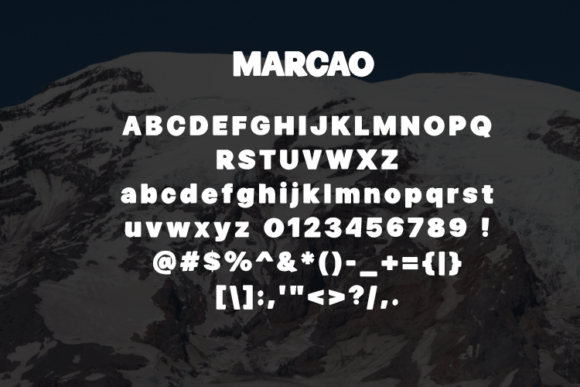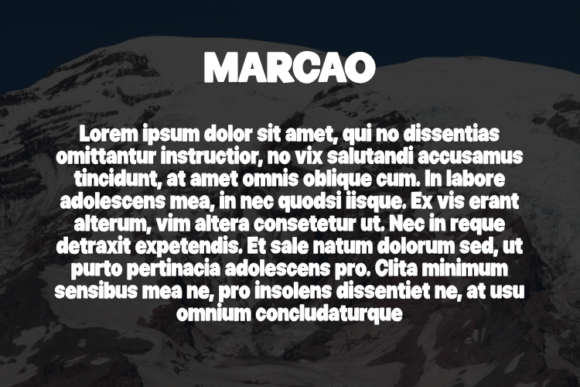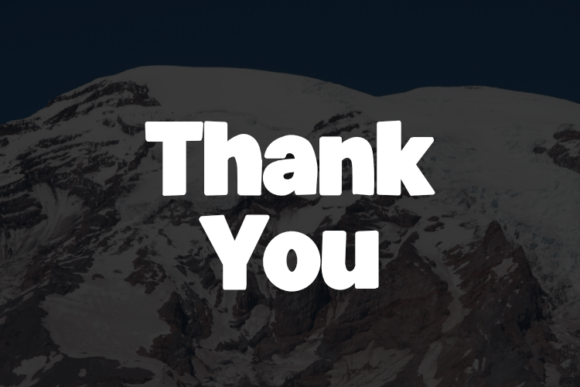
Introduction to Marcao Font
Immerse yourself in the world of creativity with β€œMARCAO” – a versatile font carefully curated to breathe life into your designs.
Ideal for creating standout apparels, eye-catching t-shirts, and a vast array of other products, MARCAO adapts flawlessly across all your design requirements It’s universally compatible with all software and comes in an easy-to-use otf file.
Key Features of Marcao Font
Why Choose Marcao Font?
Marcao Font offers exceptional quality and versatility, making it a valuable addition to your design toolkit. Whether you’re creating for personal projects or commercial use, Marcao Font delivers professional results.